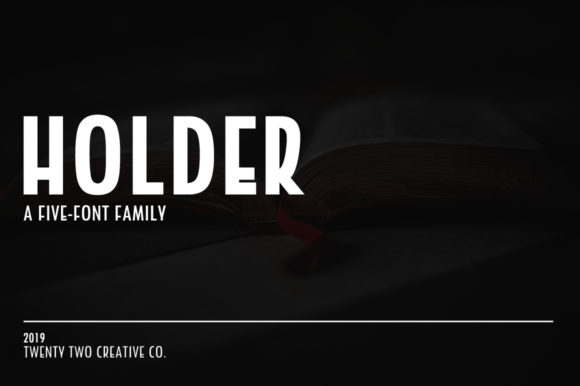
Behold the Holder Family Font, a stunning sans-serif font family that exudes charm and sophistication. Inspired by the covers of antiquated books, Holder Family Font possesses an allure that is both timeless and contemporary. Whether you're designing a captivating website, creating an everlasting brand identity, or crafting eye-catching logos, Holder Family Font is your steadfast companion.
Immerse yourself in the world of Holder Family Font, a captivating collection of five distinct fonts: Regular, Light Heavy, Outline, and Stamp. Each font is meticulously crafted to provide you with a versatile toolset, enabling you to effortlessly convey your message with impact. Unleash your creativity and let Holder Family Font elevate your designs to new heights.
Regular: The cornerstone of the Holder Family Font, Regular exudes a sense of balance and harmony. Its clean lines and legible forms make it an ideal choice for body text, ensuring seamless readability and clarity. Allow Regular to guide your readers through your content, captivating their attention and leaving a lasting impression.
Light Heavy: Embrace the boldness of Light Heavy, a font that commands attention without overpowering your designs. Its slightly thicker strokes add a touch of weight and impact, making it perfect for headings, titles, and call-to-action elements. Let Light Heavy amplify your message, leaving an unforgettable mark on your audience.
Outline: Introduce a touch of playfulness and creativity with Outline. Its hollowed-out letters create a unique visual effect that adds depth and dimension to your designs. Use Outline to create eye-catching logos, posters, and social media graphics that demand attention. Let Outline be your artistic expression, captivating your audience with its captivating charm.
Stamp: Discover the raw and textured beauty of Stamp, a font that emulates the charm of hand-stamped lettering. Its imperfect edges and distressed aesthetic add a touch of authenticity to your designs. Unleash Stamp's potential in vintage-inspired branding, retro posters, and packaging design. Let Stamp transport your audience to a bygone era, creating an emotional connection that resonates deeply.